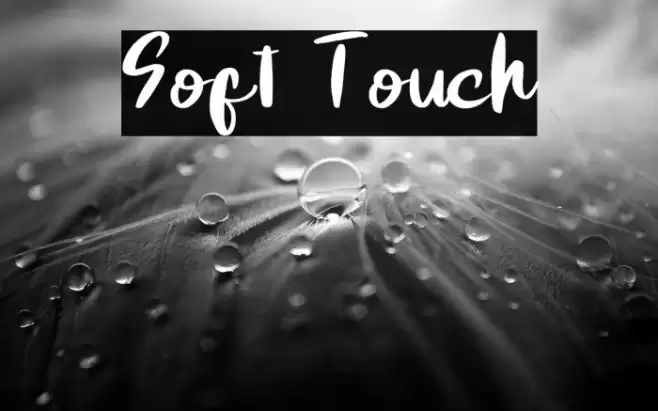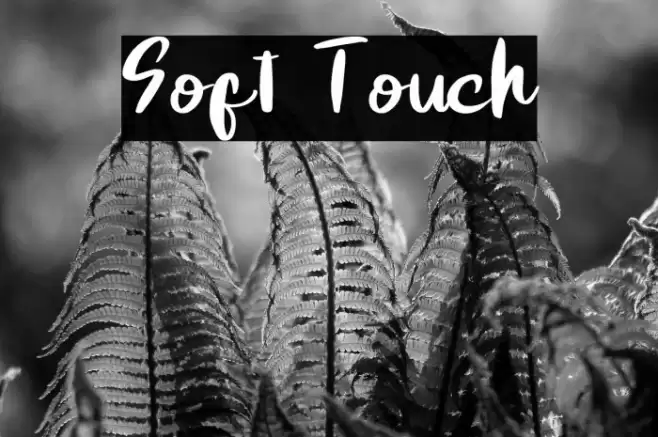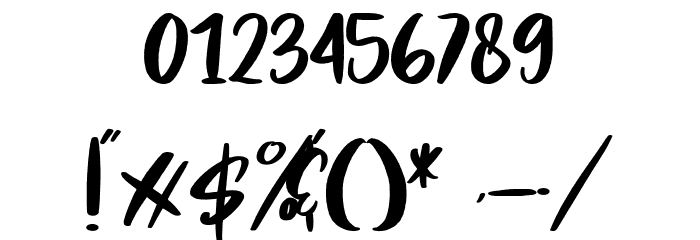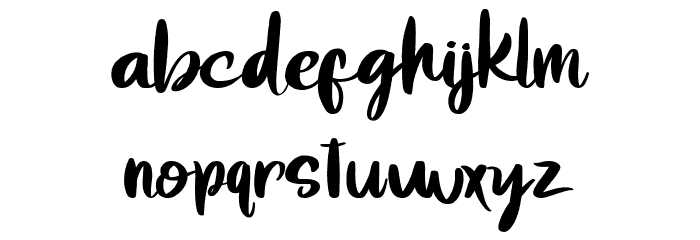
Soft Touch Font
Soft Touch Description
This font features a bold and expressive handwritten style, characterized by its fluid and dynamic strokes. The uppercase letters exhibit a playful yet sophisticated flair, with varying stroke widths that add a sense of movement and energy. The lowercase letters maintain a consistent style, offering a smooth and cohesive look. Numbers and special characters are crafted with the same attention to detail, ensuring versatility across different uses. The overall appearance is both modern and artistic, making it suitable for creative projects that require a personal touch.
A bold, expressive handwritten font with dynamic strokes from Regular fonts.
- Proposed Projects: Ideal for branding, invitations, greeting cards, and artistic posters.
- Use Case: Logos, Headlines, Artistic projects